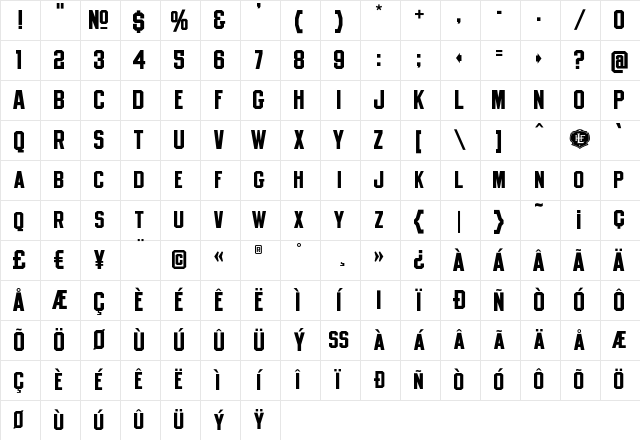
Complete LHFOldBlockCondBold Regular glyph index. Displaying only characters natively supported by LHFOldBlockCondBold Regular font.
LHFOldBlockCondBold is a composed and adaptable typeface that performs quietly and consistently across a wide range of design contexts. Its bold stroke weight gives it real presence on the page. Its narrow stance lets it pack a punch even in space-constrained designs.